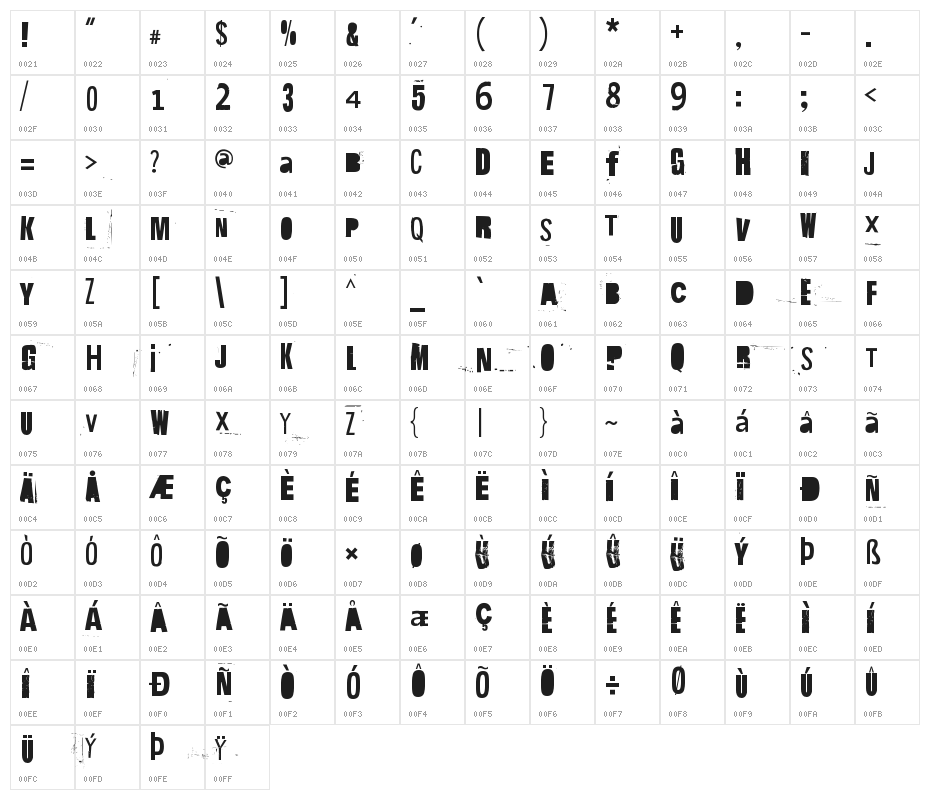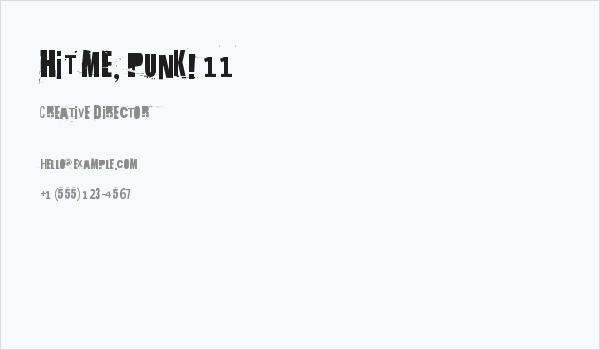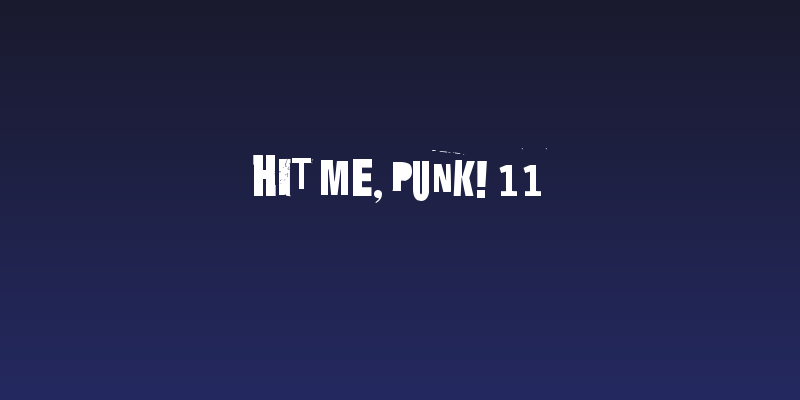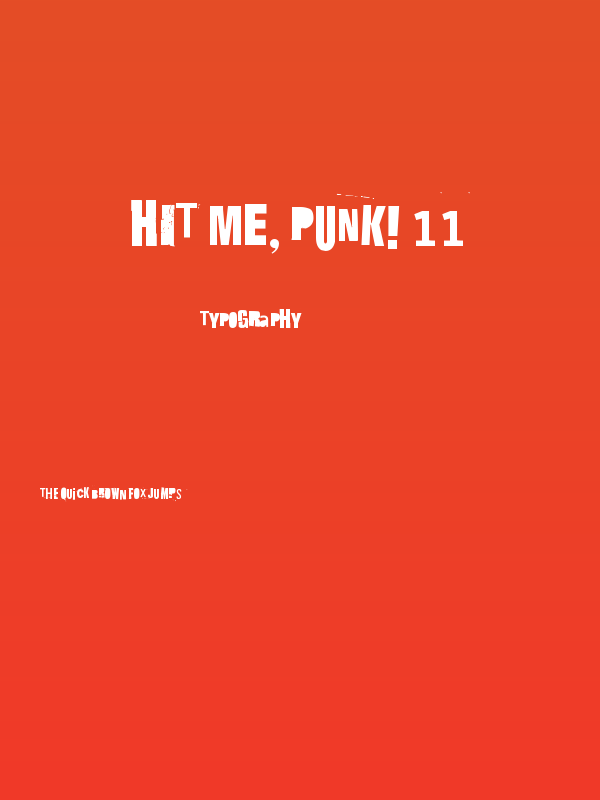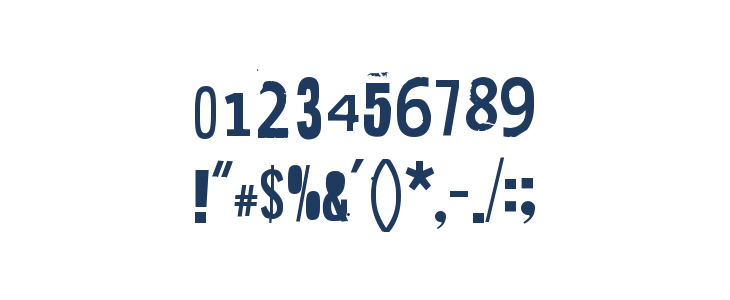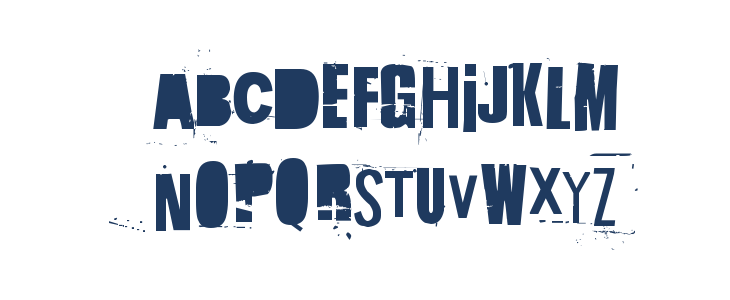
Hit me, punk! 11 Font
Hit me, punk! 11 Description
This font exudes a rebellious and edgy vibe, characterized by its distressed and grunge-inspired appearance. The letters are bold and uneven, with a rough texture that gives them a worn, vintage feel. Each character appears as if it has been cut out from different sources, creating a collage-like effect. The uppercase and lowercase letters maintain a consistent style, with some characters featuring unique, irregular shapes that add to the chaotic aesthetic. The numbers and special characters follow the same distressed pattern, enhancing the overall punk rock theme.
| Overall Style | Grunge, Punk, Vintage |
| Use Case | Headlines, Posters, Branding |
| Proposed Projects | Ideal for music album covers, punk-themed posters, rebellious branding, and edgy graphic design projects. |